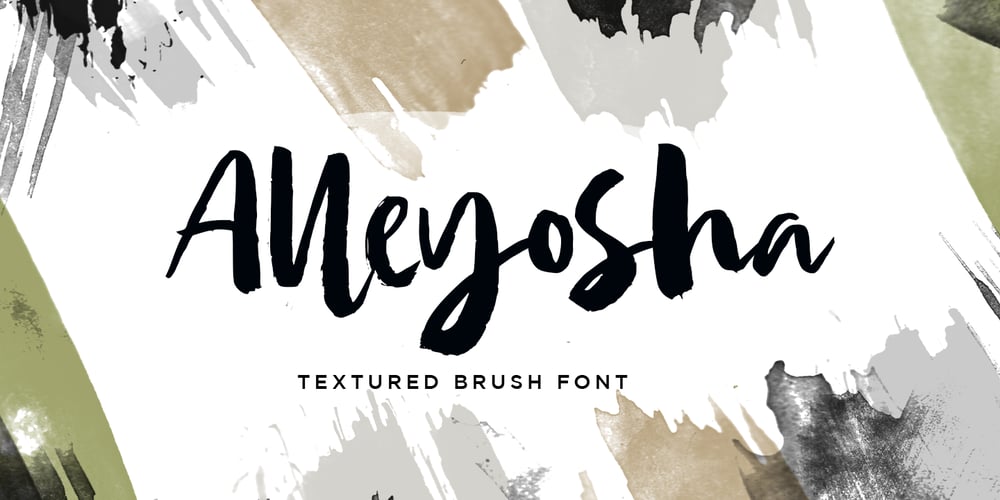
Alleyosha
Alleyosha font
Alleyosha Font Family was designed by Yanuar Adi and published by Typehand Studio. Alleyosha contains 3 styles and family package options. Alleyosha Handbrush typeface with rustic effect. This chances our team make 3 different character set font. Alleyosha are handmade brush which is guaranteed to add an eye-catching to your design or simply as a stylish text overlay to any background image.Perfect for packaging, logo design, t-shirt design and etc. we made this brush font because we love rustic or dry brush effect.